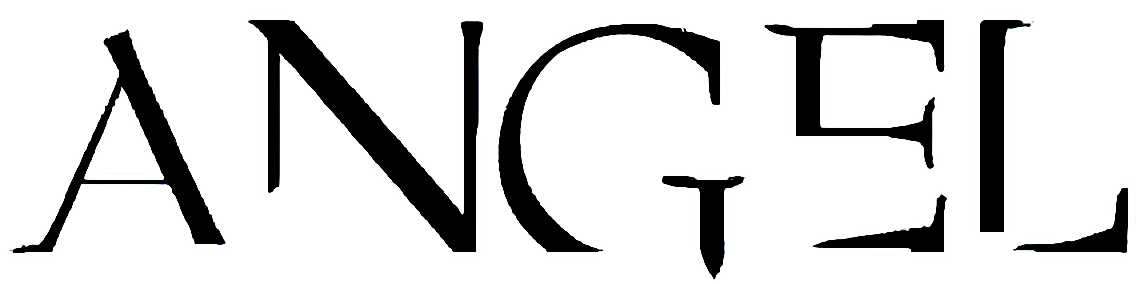
Angel stylish
Angel stylish is a fancy font designed by JuliaL (1999). It's a decorative display font with plenty of personality, made to grab attention. It's a free download, and you can try it with your own text in the preview above first.
- Designer: JuliaL
- Year: 1999 (from the copyright line in the font)
With complete upper and lowercase letters and all ten digits, Angel stylish is ready for real wording, not just a single headline. Everyday marks like &, !, ? and @ are there too. Thanks to its accented letters, it also works for Spanish, French, German, Portuguese and Italian, not just English.
Designers usually reach for fonts like Angel stylish when they're making posters, logos and eye-catching headlines. The file has no kerning data, so in logos and big titles check pairs like AV, To and Wa and tighten the spacing by hand. Use it for one standout word or headline and let simpler fonts handle the rest.
Yes. Angel stylish includes the accented letters needed for Spanish, French, German, Portuguese and Italian, so it works for more than just English.